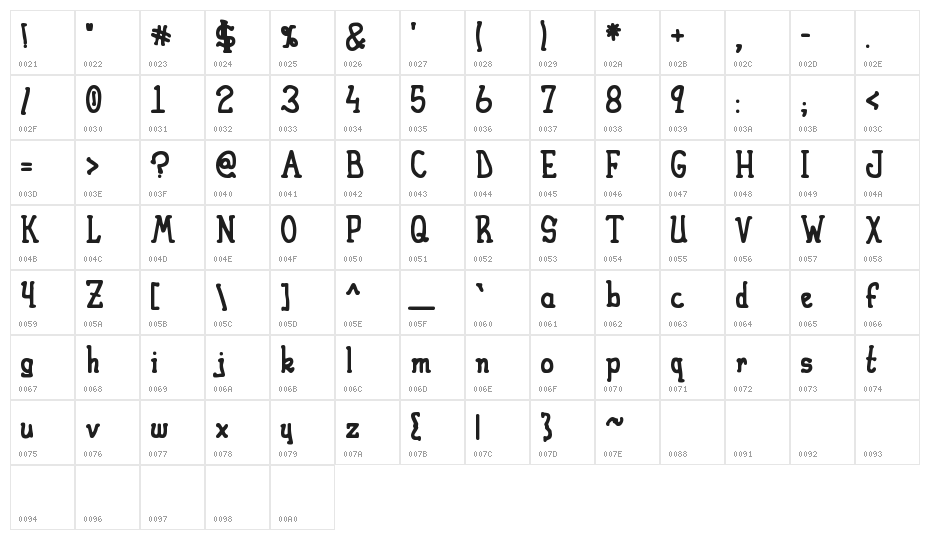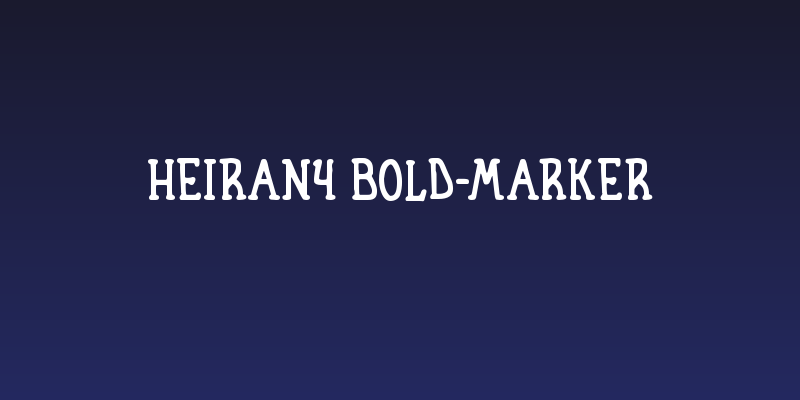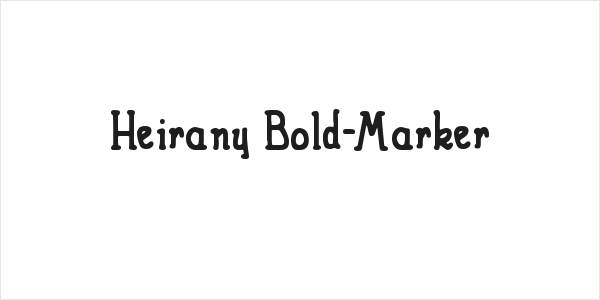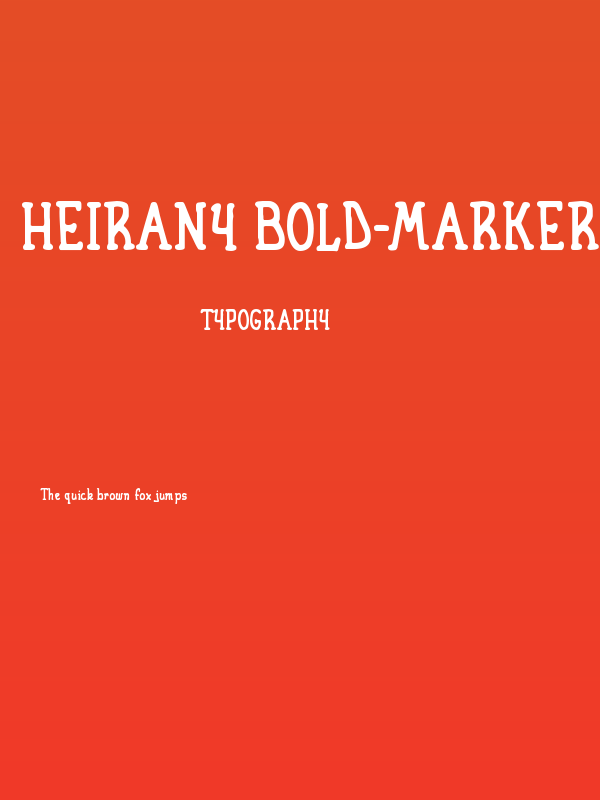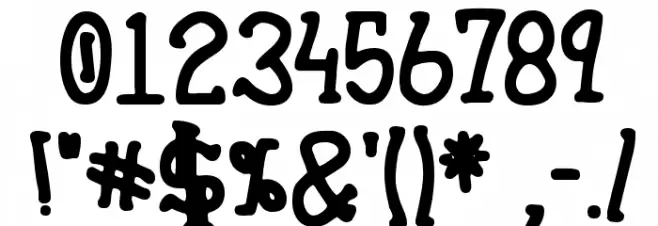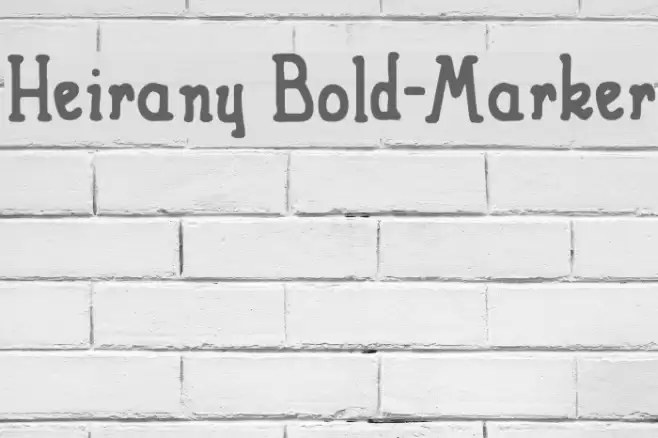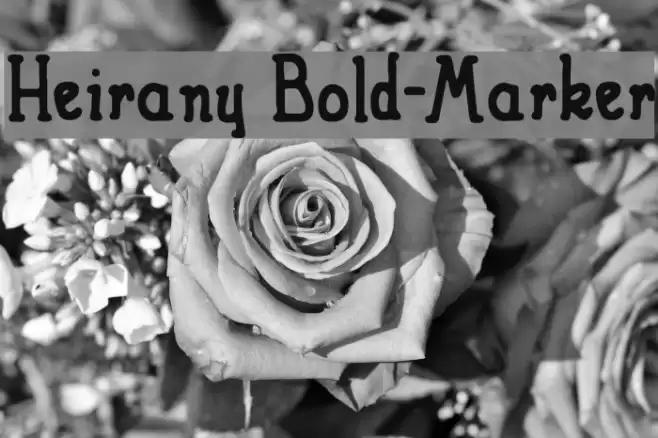
Heirany Bold-Marker Font
Heirany Bold-Marker Description
This font features a bold and playful marker style, characterized by its thick strokes and rounded edges. The letters have a hand-drawn appearance, giving them a casual and approachable feel. The uppercase and lowercase letters maintain a consistent style, with slightly exaggerated curves and a whimsical touch. Numbers and special characters are designed to match the playful aesthetic, making them suitable for creative and informal projects. The font's overall look is dynamic and energetic, ideal for capturing attention and conveying a sense of fun.
| Overall Style | Playful |
| Proposed Projects | Perfect for children's books, comic strips, playful branding, and creative posters. |